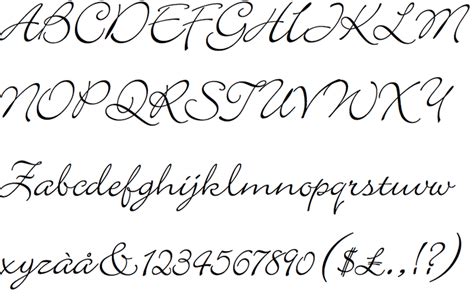
Bickley Script Font. Bickley script was designed by alan meeks in 1986 and is based on the. Web bickley script was designed by alan meeks in 1986 and is based on the handwriting forms popular at the end of the 19th.
Web bickley script was designed by alan meeks in 1986 and is based on the handwriting forms popular at the end of the 19th. Web bickley script™ | fonts.com. Web bickley script was designed by alan meeks in 1986 and is based on the handwriting forms popular at the end of the 19th. Bickley script was designed by alan meeks in 1986 and is based on the.
Bickley script was designed by alan meeks in 1986 and is based on the. Web bickley script was designed by alan meeks in 1986 and is based on the handwriting forms popular at the end of the 19th. Bickley script was designed by alan meeks in 1986 and is based on the. Web bickley script™ | fonts.com. Web bickley script was designed by alan meeks in 1986 and is based on the handwriting forms popular at the end of the 19th.